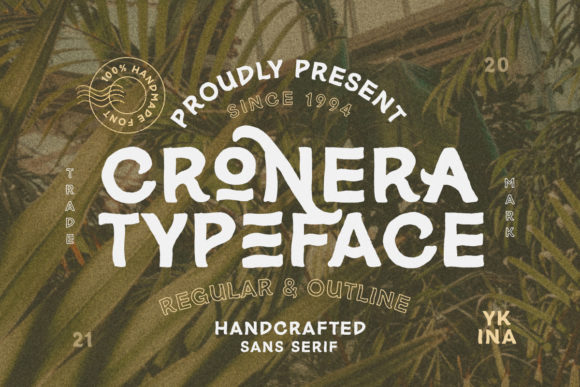
Introducing Cronera Font, the display font that will ignite your designs with its captivating boldness and organic flair. Created by the talented saridezra, this font is a masterpiece that deserves a place in the arsenal of every creative professional.
Cronera Font is not just another font; it's a statement piece that commands attention. Its thick, handwritten letters exude a sense of authenticity and raw emotion, making it the perfect choice for logos, branding, and any project that demands an unforgettable visual impact.
Imagine your logo emblazoned in the bold strokes of Cronera Font, instantly establishing your brand as one that's confident, creative, and utterly captivating. Its organic curves and fluid lines lend a touch of elegance, while its thick strokes convey a sense of strength and stability.
But Cronera Font is not just limited to logos. Its versatility extends to a wide range of design applications. Websites, posters, social media graphics, and even packaging can be transformed into visual masterpieces with the addition of Cronera Font's bold and beautiful characters.
Whether you're a seasoned designer or just starting to explore the world of typography, Cronera Font is a must-have for your collection. Its unique and eye-catching style will elevate your designs to new heights, leaving a lasting impression on your audience.